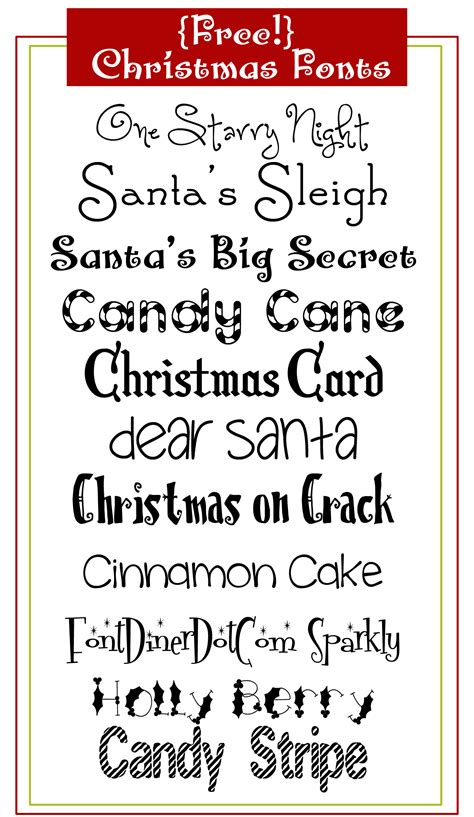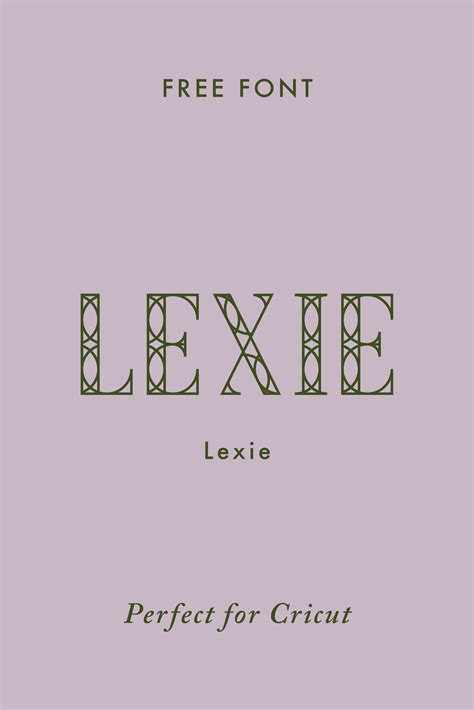
Typography function as the ocular voice of any design, whether you are progress a professional website, craft selling cloth, or evolve a brand individuality. Notice the utter font can often be an expensive endeavor, which is why free downloadable fonts have go an essential resource for designers, pupil, and small business owners alike. By leveraging high-quality, cost-effective plan assets, you can lift the aesthetics of your project without straining your budget. This comprehensive guidebook search the better slipway to discover, manage, and implement costless typefaces into your creative workflow while maintain a professional standard that aligns with current digital blueprint trends.
Understanding Typography and Design Trends
Modern pattern relies heavily on readability and emotional reverberance. The fonts you select regulate how users comprehend your substance. From light sans-serifs that promote legibility to elegant serifs that convey sophistication, the library of useable font is vast. Realize these family is the initiative step toward efficient visual communicating.
Types of Fonts for Modern Projects
- Sans-Serif: Ideal for digital screens, proffer a clear, minimalist look.
- Serif: Perfect for mark medium and editorial projects requiring a traditional feel.
- Script/Handwritten: Best suit for son or artistic headers to add personality.
- Exhibit: Bold and unique, designed specifically for grabbing care in little snippets of text.
Best Practices for Integration
- Limit font families: Stick to two or three discrete typefaces per project to preserve optic concord.
- Check character sets: Ensure the fount includes necessary fibre, such as symbol, numbers, and language -specific accents.
- Test for weight variation: A good face should have multiple weight (e.g., Bold, Light, Italic) to supply flexibility in your layout.
Mastering the use of composition is a continuous process that evolves as you derive more experience in the design field. By carefully select high-quality assets and respecting licensing terms, you can insure that your employment remains both beautiful and legally sound. Whether you are aiming for a minimalist esthetical or a bold, expressive mode, the correct choice will e'er form the cornerstone of a successful design strategy. Ultimately, investing clip in sourcing the gross type will ensure your projects leave a lasting, professional impression through the power of thoughtful composition.